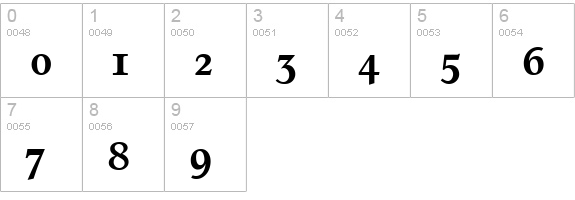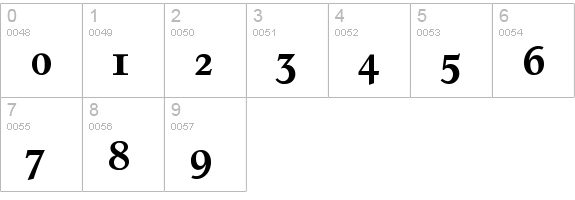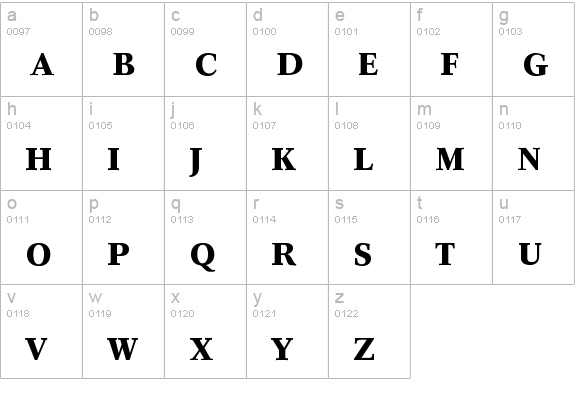
Concorde (R) Expert Medium Font Details
Concorde (R) Expert Medium is a balanced, medium-weight variant in the Concorde typeface family \xE2\x80\x94 well suited to sub-headlines, navigation, and balanced editorial work.
Concorde (R) Expert Medium font is a sleek and modern typeface that exudes sophistication and professionalism. Its clean lines and balanced proportions make it perfect for a wide range of design projects, from elegant invitations to corporate branding. The medium weight of the font strikes the ideal balance between readability and style, making it versatile for both print and digital applications. What sets Concorde (R) Expert Medium font apart is that it is available for free download at FontsMarket.com. This means that you can access this high-quality font without any cost, allowing you to elevate your designs without breaking the bank. Whether you're a seasoned designer looking to refresh your font library or a newcomer seeking a reliable typeface, Concorde (R) Expert Medium font is a valuable addition that won't cost you a penny. Download it today and discover the endless possibilities this font can bring to your creative projects.